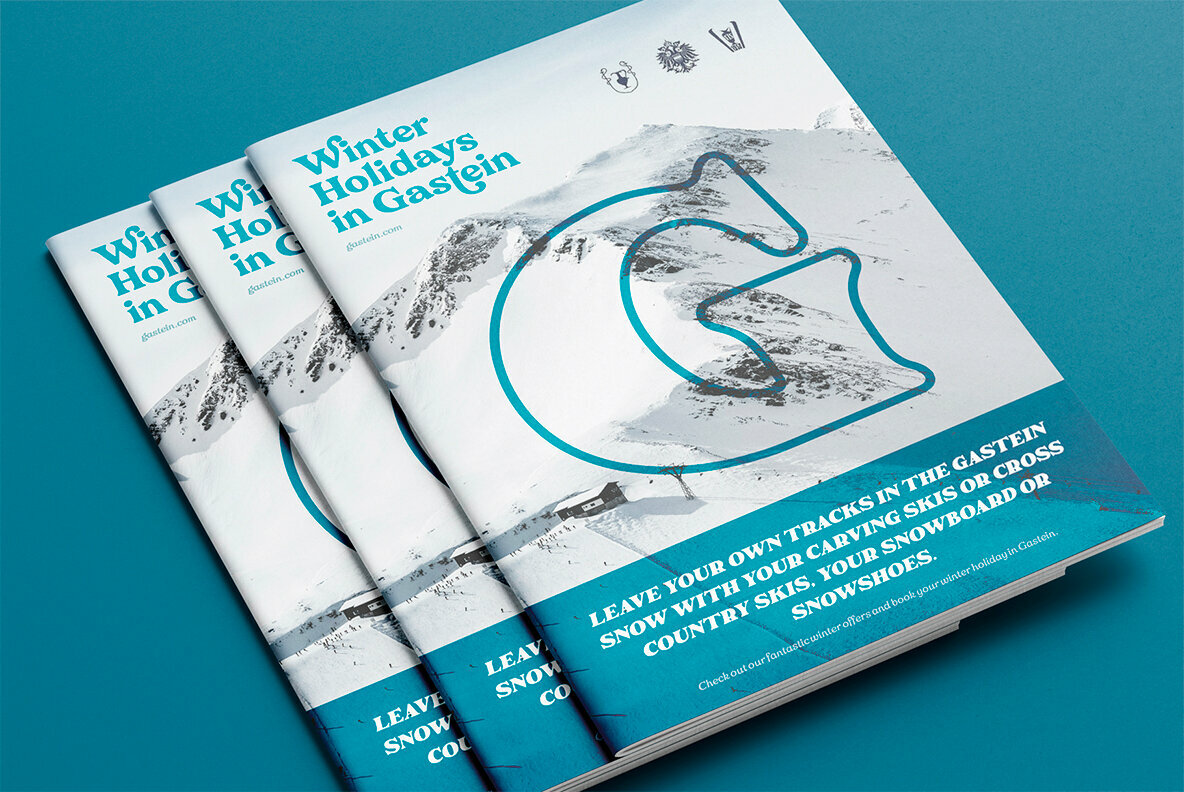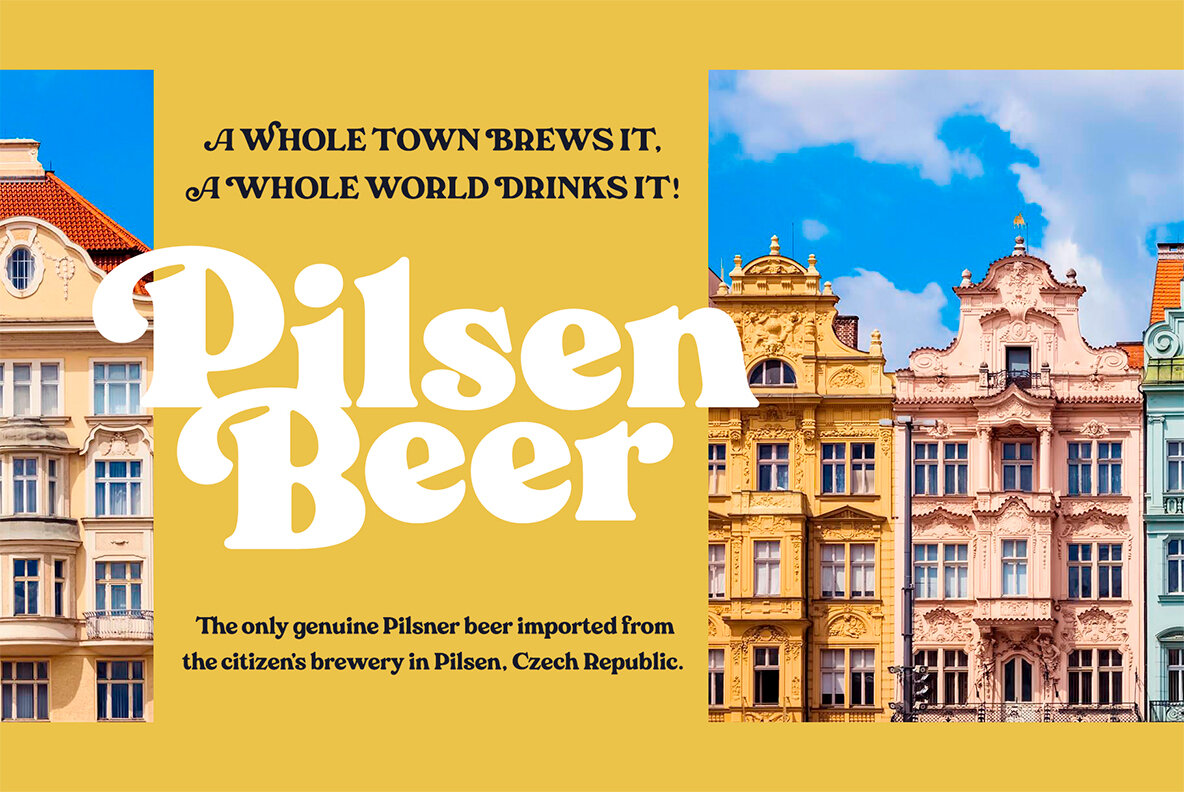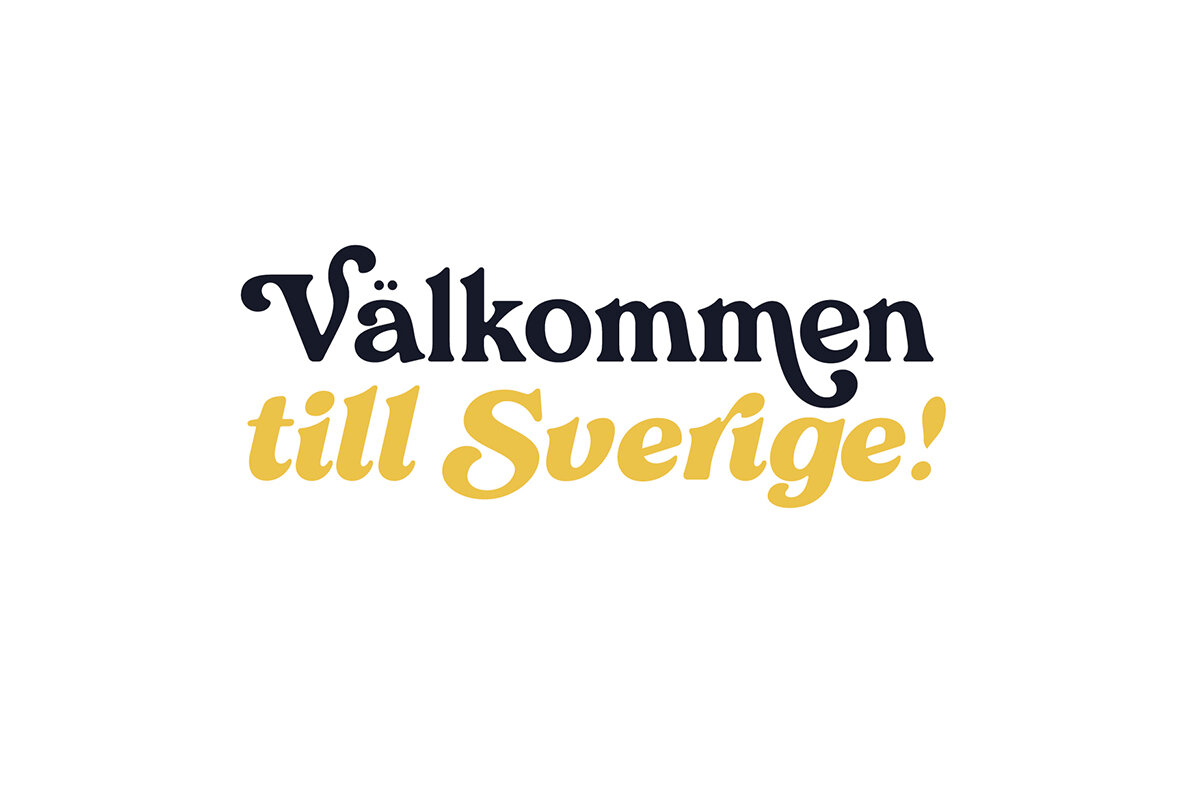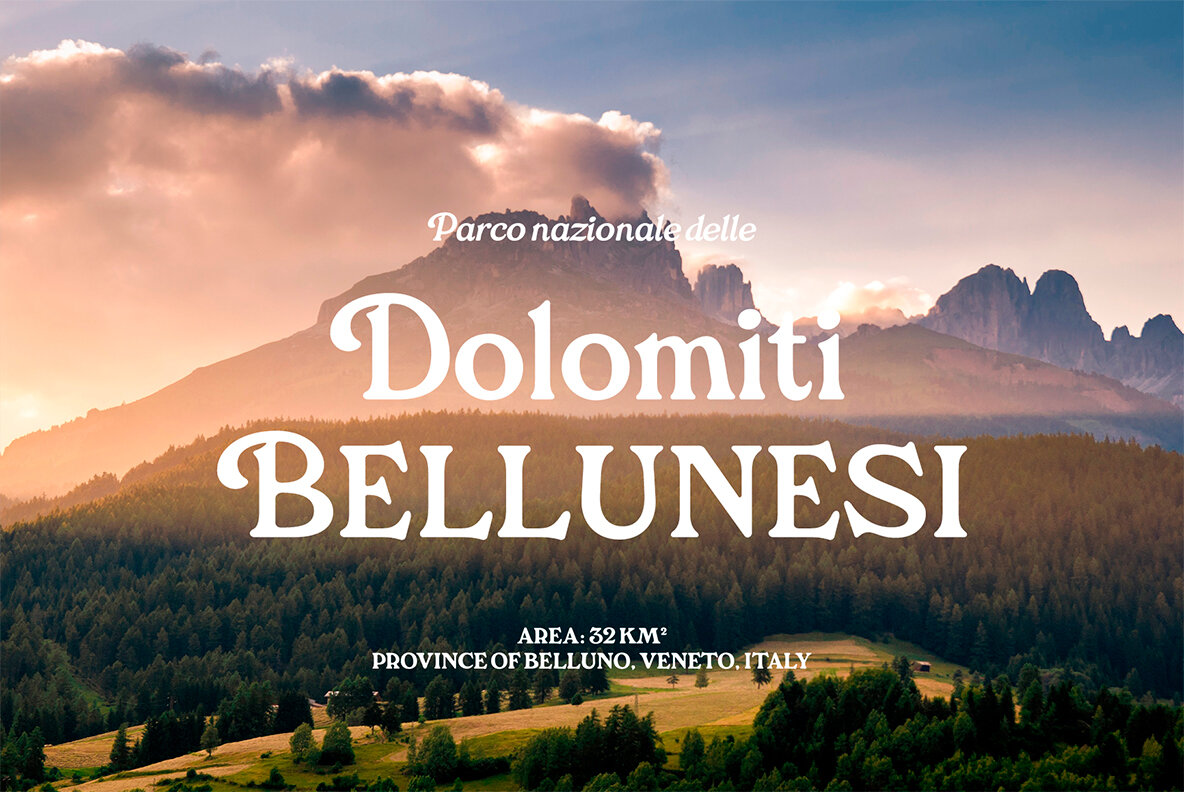
Rashfield Font
Rashfield is a soft serif type family, seamlessly blending modern design with a retro aura. Inspired by the classical Windsor mood famously seen in Woody Allen movie titles, this typeface presents outward bent characters like h, m, and n. Its combination of nostalgia and contemporary versatility makes it ideal for dynamic creative projects.Rashfield: Soft Serif with Retro Elegance
Rashfield lends a unique voice to modern projects while subtly nodding to the past, making it a cherished choice for designers seeking a touch of classic charm.